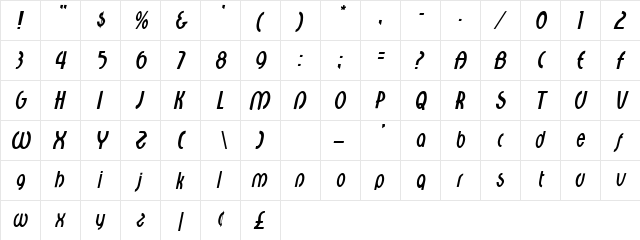
Resolve Oblique
Design Context for Resolve Typeface
Resolve takes a measured approach to typography — its balanced proportions and neutral character make it a reliable workhorse for both digital and print work. The dynamic lean of this cut emphasises speed and emphasis in any layout.
Pro Tip: Use Resolve for emphasis, pull quotes, and subheadings where its slanted energy can add rhythm to the layout.